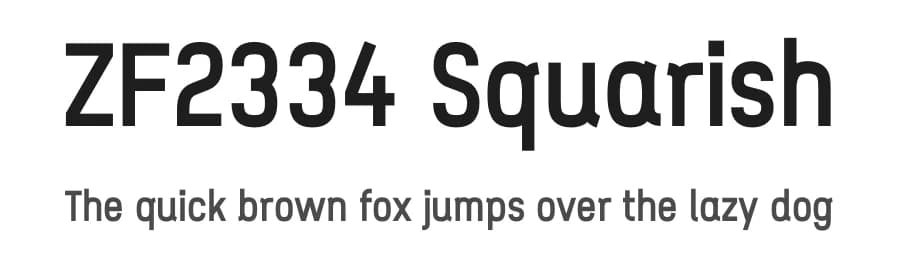
About ZF2334 Squarish Font
Multilingual support has been added;
The Italic style has been removed as it looks too weird;
2 styles have been added : Light and Hairline.
ZF2334 Squarish is a condensed monoline sans-serif font. It is similar to Helvetica Condensed.
ZF2334 Squarish ships with 6 OpenType features you can switch on in apps that support them (Illustrator, InDesign, Affinity, Figma, CSS font-feature-settings).
ZF2334 Squarish Font is a versatile sans-serif font that works for both headings and body text. Pair it with a contrasting serif or slab serif font to add visual interest and a clear distinction between titles and body copy.
ZF2334 Squarish Font
by S. Z.